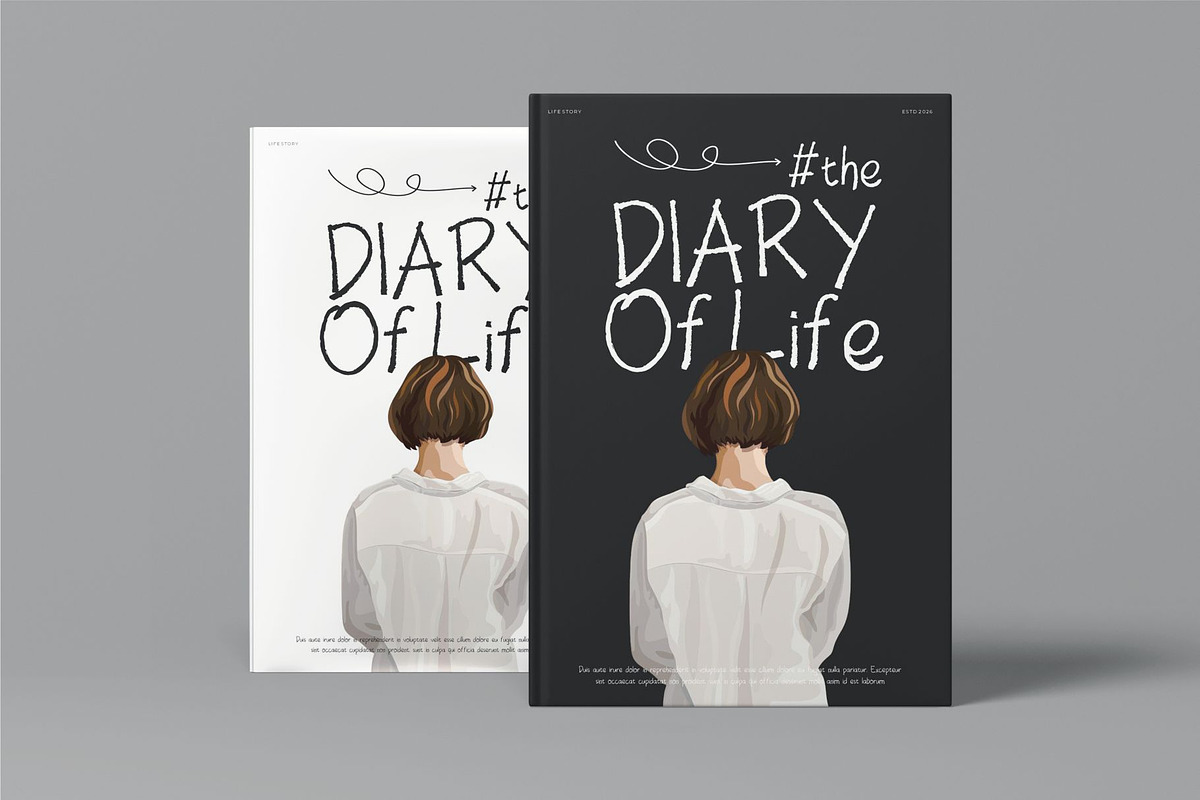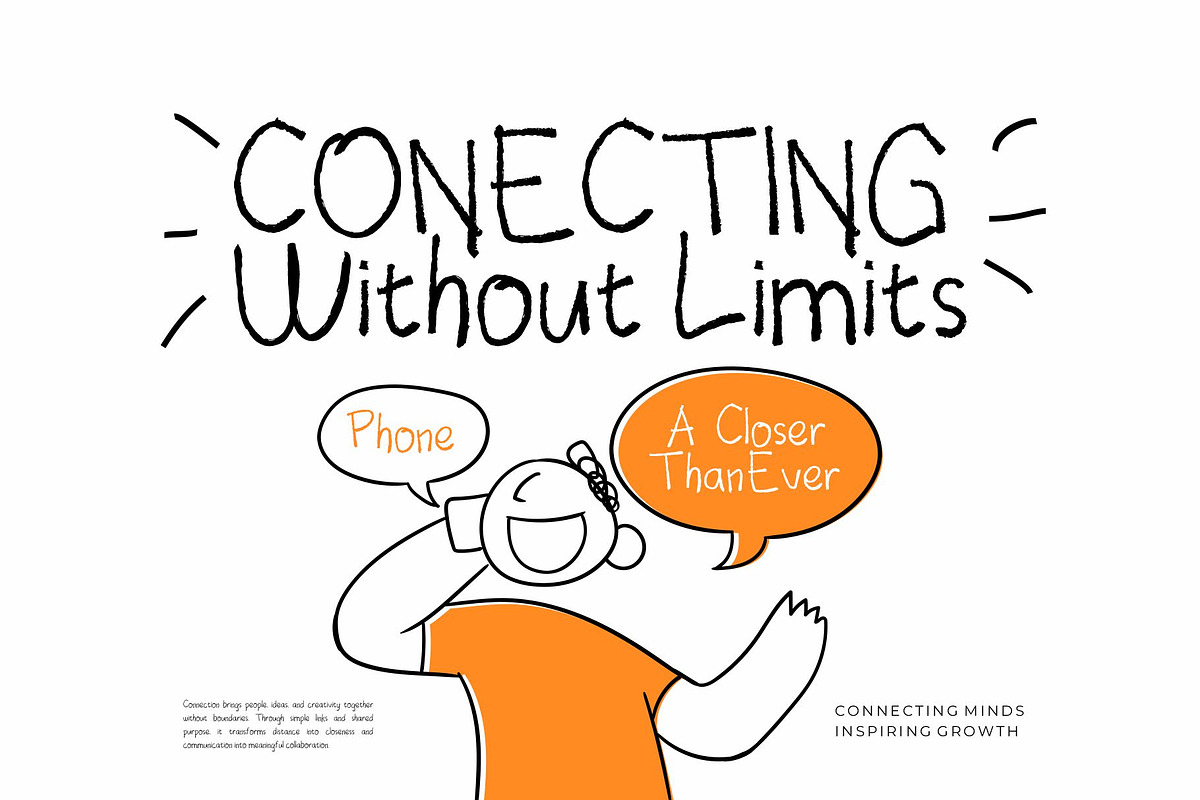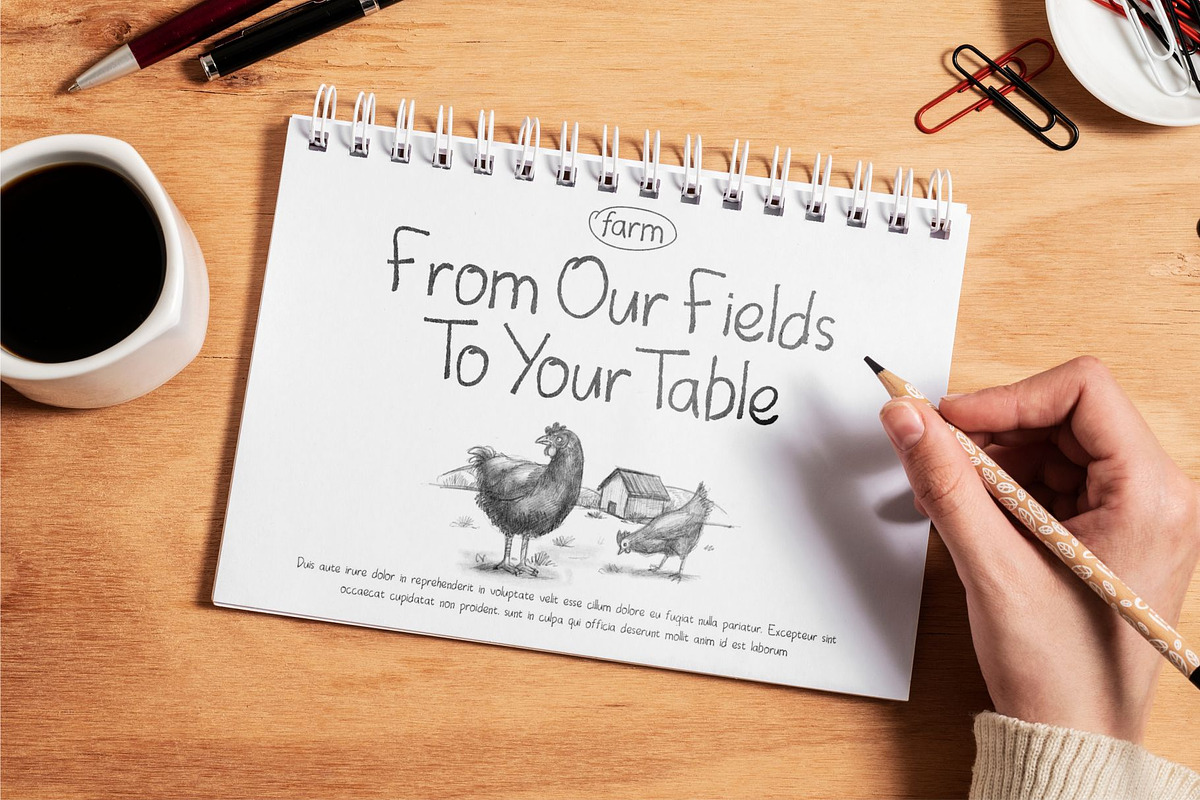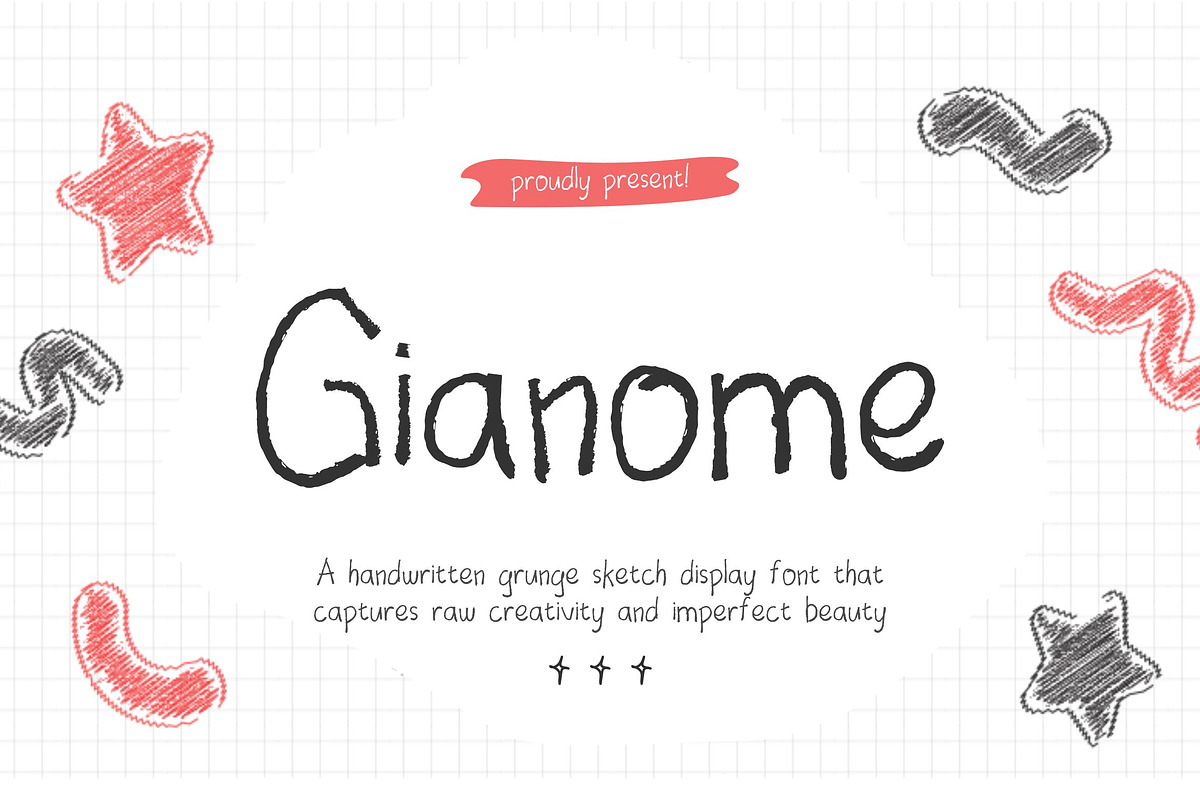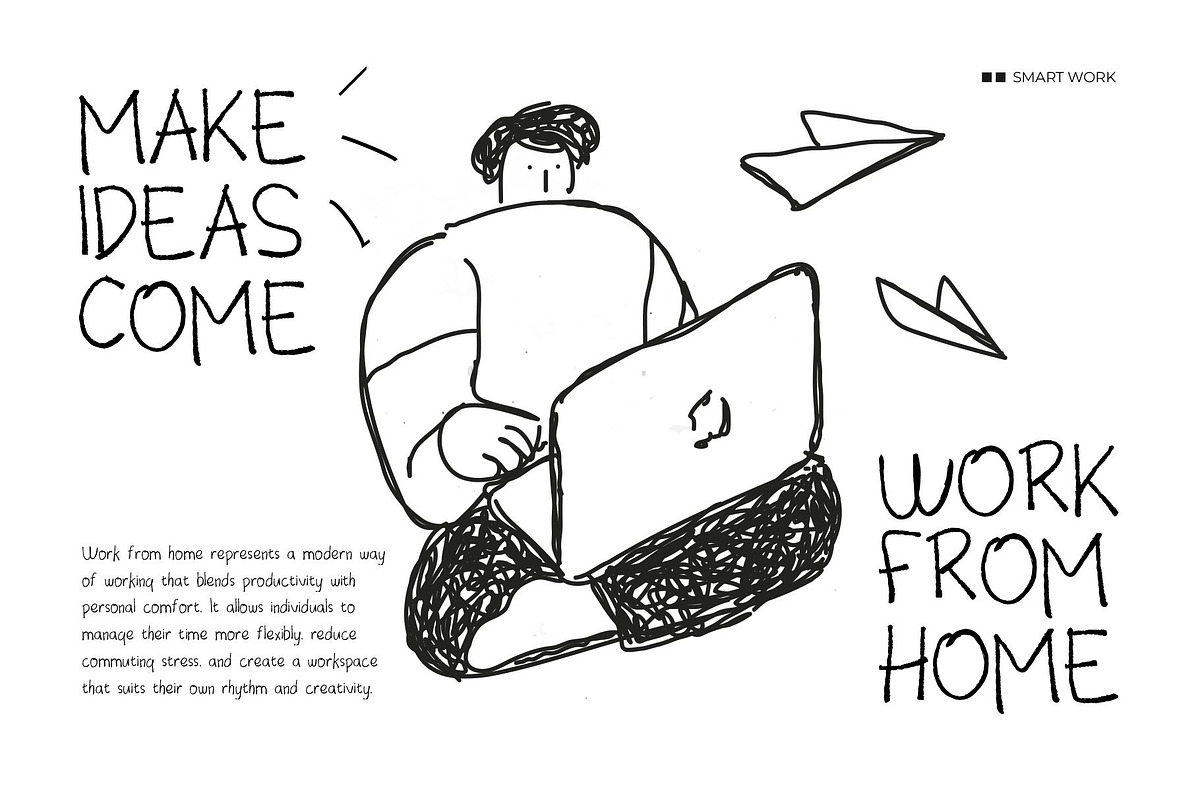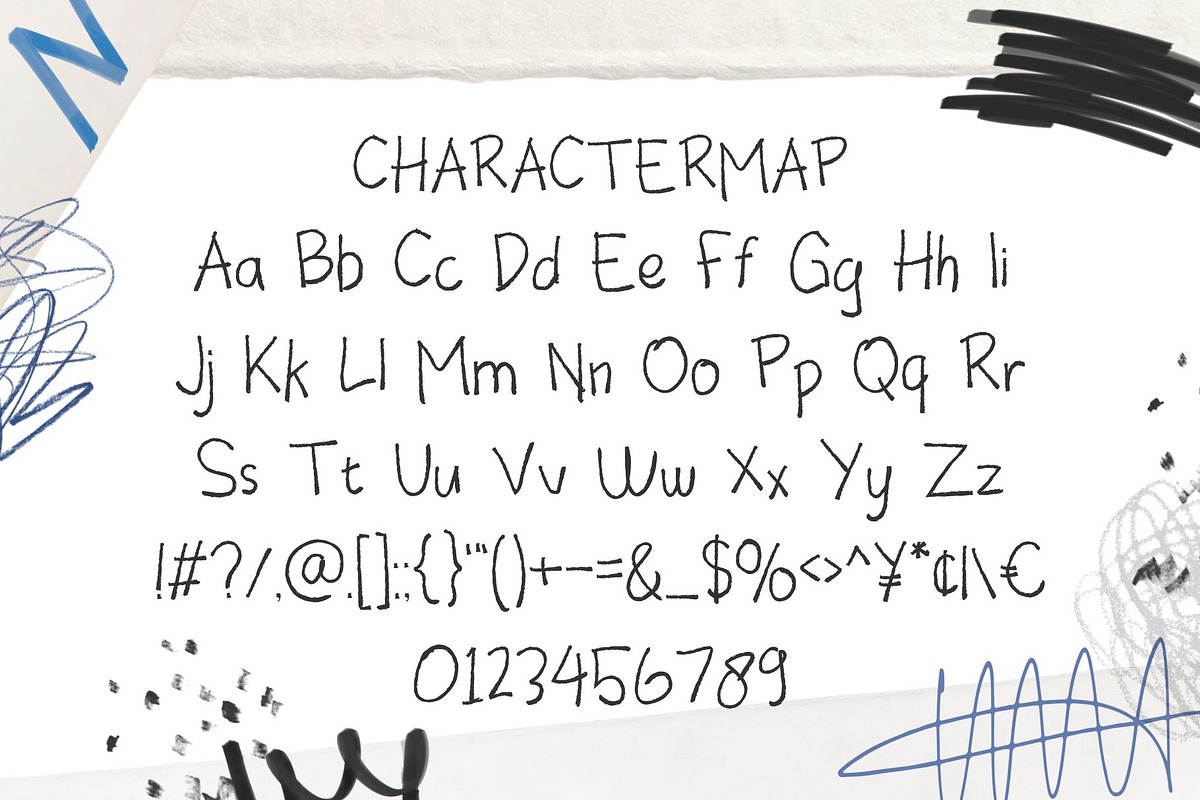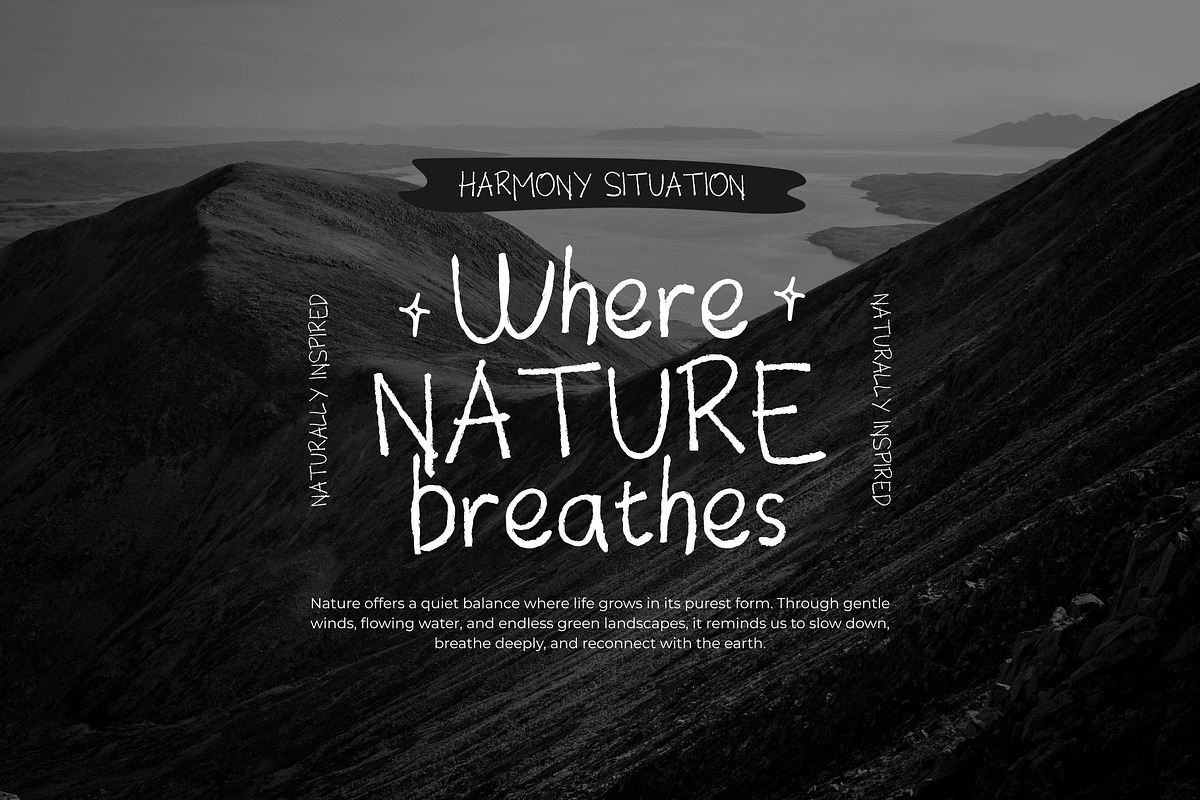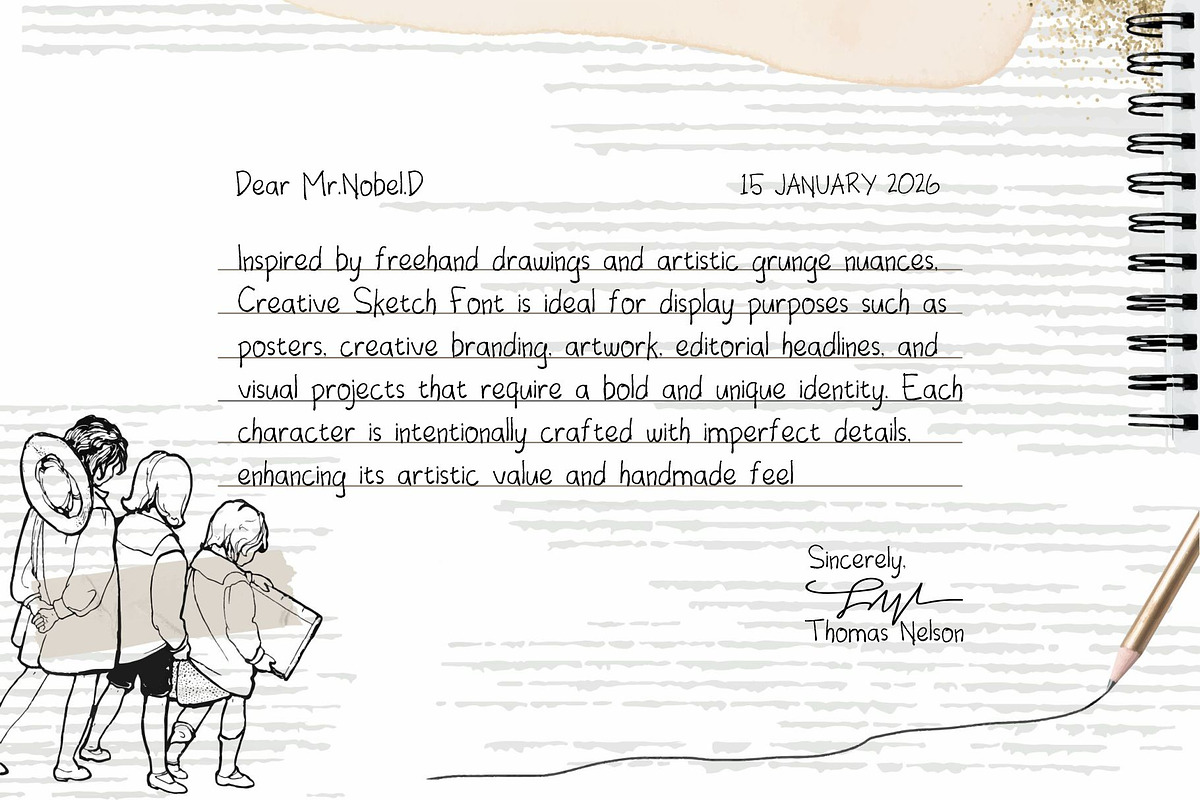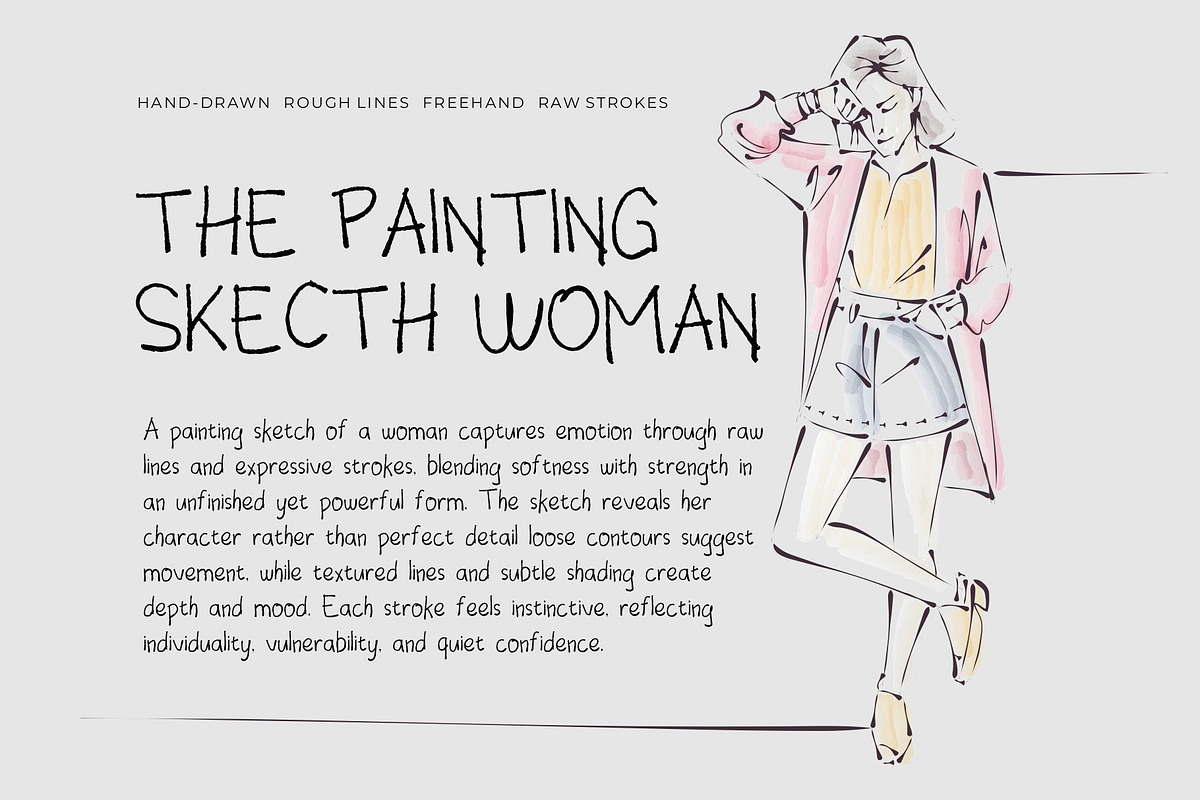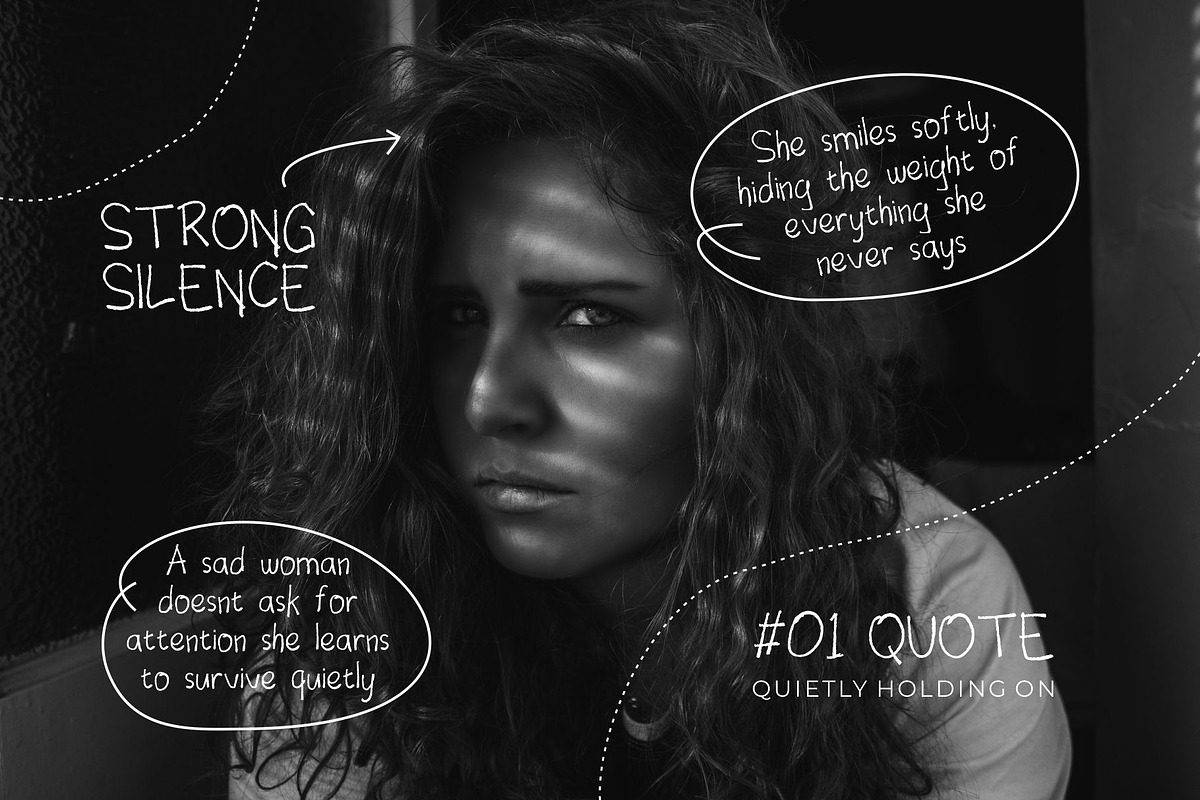
Gianome | Modern Playful Handwritten
Gianome Handwritten is a modern and playful font type for all branding and logo designs. This modern and playful handwritten font has a beautiful character. This font is suitable for invitation card designs, cool logos, movie titles, movie names, business cards, book titles, brand names, and various other designs. Gianome Handwritten is a smooth handwritten font that exudes sophistication and the moment. Its stylish ligatures make this font a perfect partner for any project.